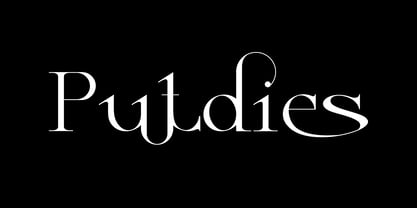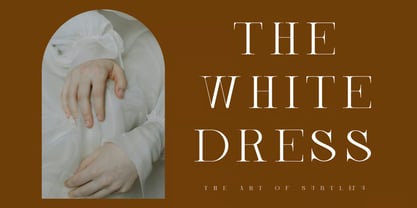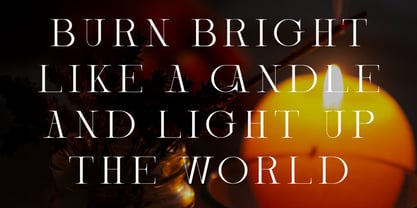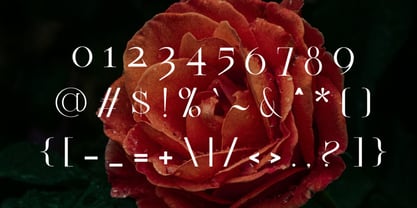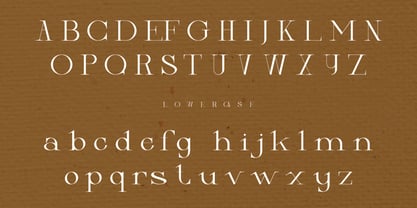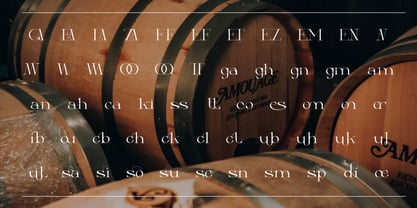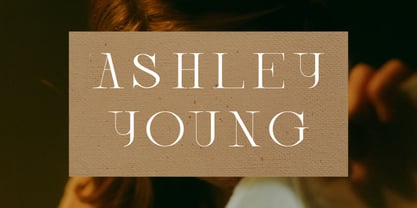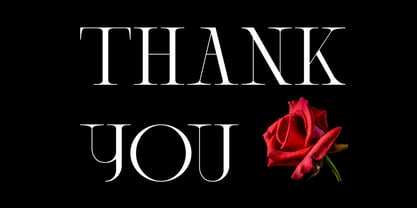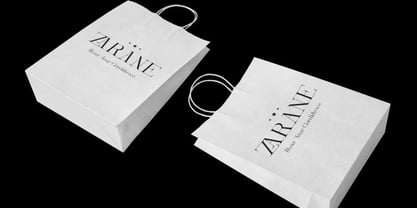
Putdies
Putdies is a modern serif display font that beautifully blends classic sophistication with contemporary elegance. Featuring sleek letterforms, clean lines, and refined serif details, Putdies is designed to deliver a luxurious and professional aesthetic that instantly elevates any creative project.
Crafted for designers who appreciate timeless typography with a modern edge, Putdies offers exceptional visual impact while maintaining excellent readability. Its distinctive character shapes and elegant proportions make it an ideal choice for high-end branding, editorial layouts, fashion campaigns, luxury packaging, magazine covers, and premium marketing materials.
Whether you're creating a sophisticated logo, designing captivating headlines, or developing a luxury brand identity, Putdies provides the perfect balance of tradition and innovation, helping your designs stand out with confidence and style.
Key Features:
• Modern Serif Display Design: Elegant serif letterforms with contemporary refinement.
• Luxury & Professional Aesthetic: Perfect for premium and high-end design projects.
• Clean & Sophisticated Typography: Crafted for clarity, beauty, and visual impact.
• Strong Display Presence: Designed to shine in headlines, logos, and large-format applications.
• Balanced Letterforms: Combines readability with distinctive style.
• Timeless Yet Modern: Merges traditional serif elegance with contemporary design trends.
• High-Quality Craftsmanship: Suitable for both print and digital media.
Perfect For:
• Luxury Branding & Logo Design: Create memorable and sophisticated visual identities.
• Fashion & Beauty Branding: Ideal for premium product and lifestyle brands.
• Editorial & Magazine Layouts: Perfect for headlines, covers, and feature articles.
• Packaging & Product Labels: Add elegance and professionalism to product presentation.
• Wedding Invitations & Stationery: Bring timeless charm to special occasions.
• Social Media & Marketing Campaigns: Design eye-catching promotional content.
• Creative Display Typography: Perfect for posters, advertisements, and visual storytelling.
Enhance your creative projects with Putdies—a modern serif display font crafted for luxury branding, editorial design, fashion campaigns, magazine covers, packaging, logos, and sophisticated visual communication. Create timeless designs with contemporary elegance and outstanding visual impact.